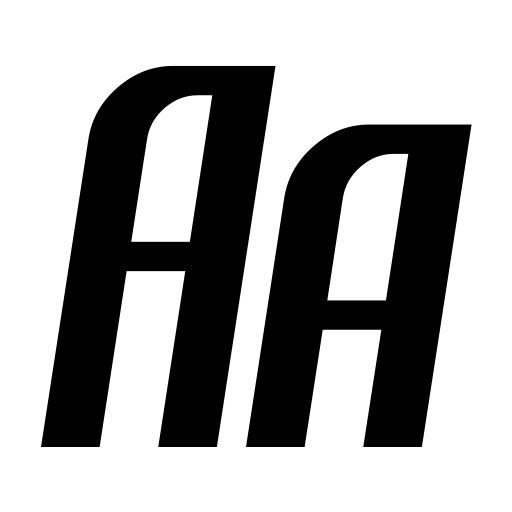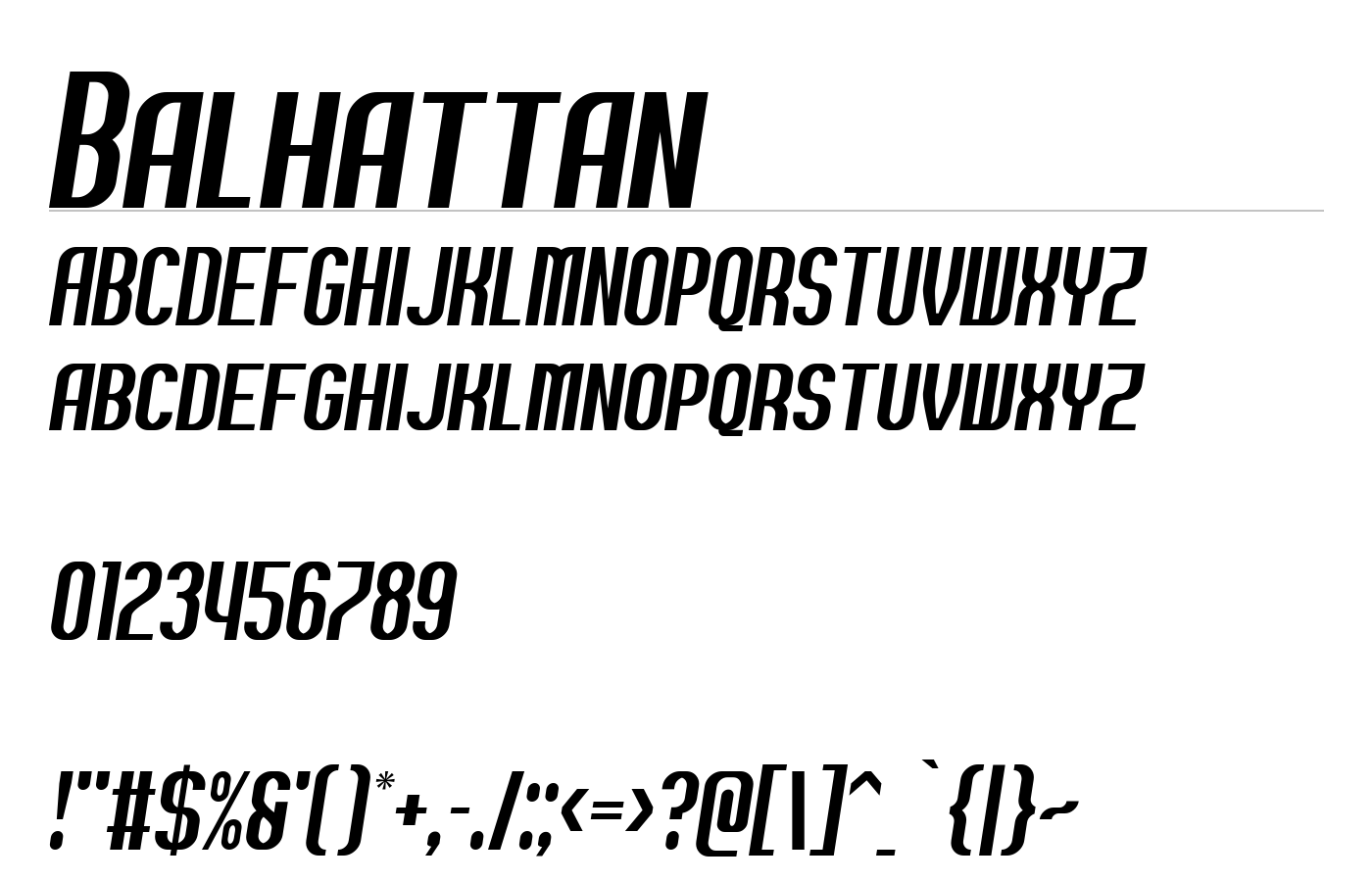
Balhattan is a bold, condensed sans serif font with a distinctively modern and dynamic feel, characterized by its tall, angled letterforms and sharp edges. Its high contrast between thick and thin strokes combined with a slightly italicized slant gives it an energetic, sporty vibe perfect for impactful headlines, branding, and packaging that demand attention and convey strength and movement. This font works especially well in fashion, sports, and contemporary editorial designs where a sleek, confident style is desired.
Balhattan Font
About Balhattan Font